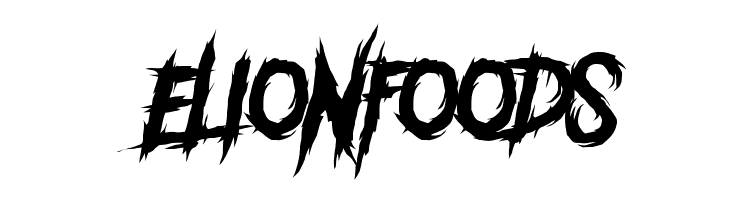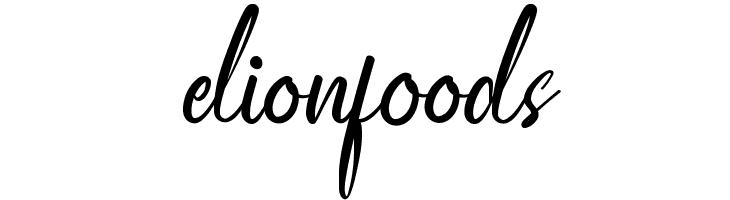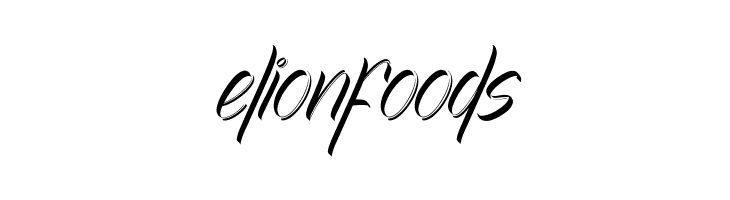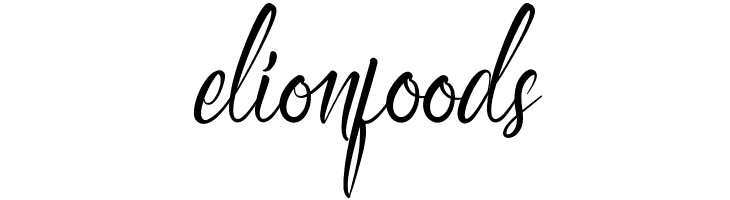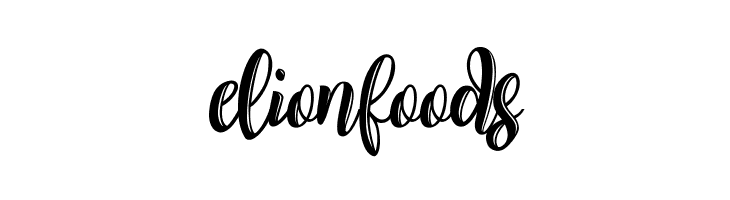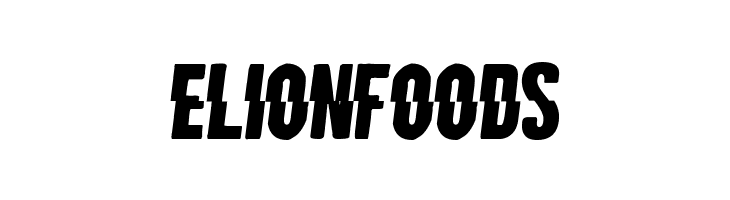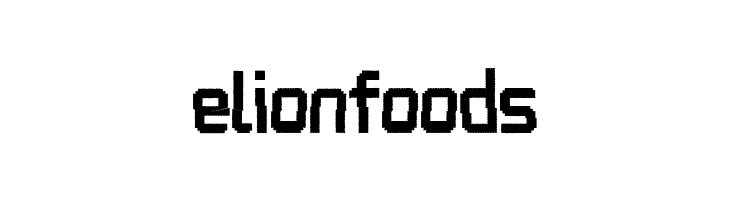
An elegant, bold script font with flowing, decorative curves.
A bold, aggressive font with sharp, jagged edges, perfect for impactful designs.
A dynamic and elegant script font with flowing, slanted letterforms.
A high-contrast, modern serif font with elegant and sophisticated styling.
A dynamic and fluid script font with elegant, flowing letterforms.
A dynamic and elegant script font with fluid, cursive strokes and a pronounced italic slant.
An elegant cursive script font with flowing, interconnected letters and dynamic stroke variations.
A bold, dynamic script font with elegant loops and modern flair.
A bold, dynamic font with angular strokes and a slight slant.